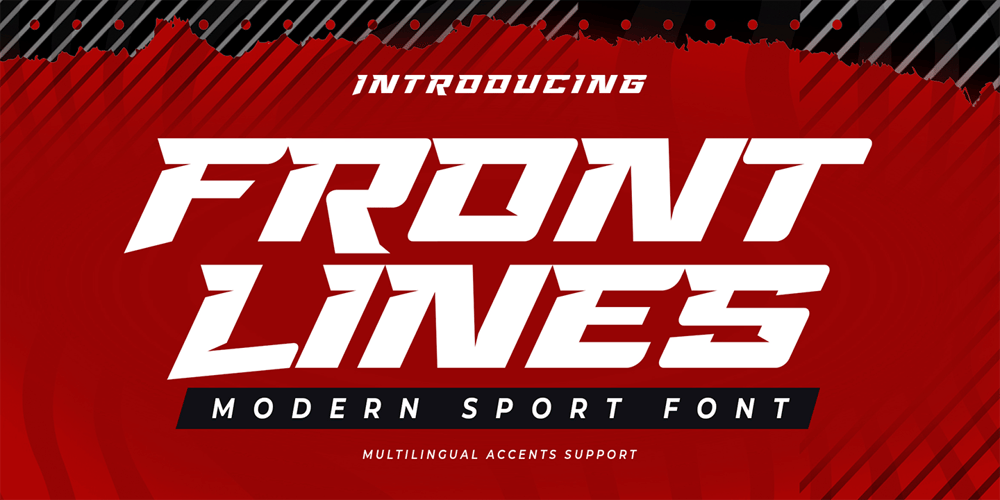
Front Lines Font Family was designed by Abdul Malik Wisnu, Anang Fibriyanto and published by Gassstype. Front Lines contains 1 styles and family package options. Hello Everyone, introduce our new product Font Frontlines This Is All Caps Sporty Font.This is a Textured Natural Style and classy style with a clear style and dramatic movement.This font Frontlines is great for your next creative project such as logos, printed quotes, invitations, cards, product .